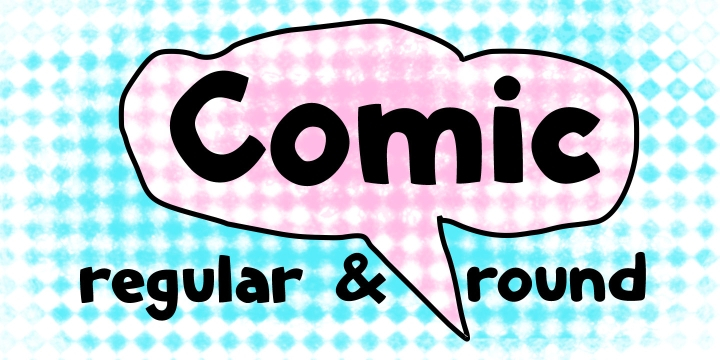
Comic SCF is a comic font family. This typeface has two styles and was published by Scholtz Fonts.
I was rather bored with the unimaginative over-use of the “Comic” fonts that come bundled with our computers. As a reaction I created this font, “Comic SCF” to produce a font that is original, legible,informal and yet professionally spaced and kerned.
It comes in two formats:
- a slightly more structured style that has terminuses that are a little squared-off, and
- a rounded, more fluid style that produces a softer impact.
Because of their readability and informality, both styles are suitable for children, advertising, comic books, invitations and posters. It has a full character set with all upper & lower case, special and accented characters.